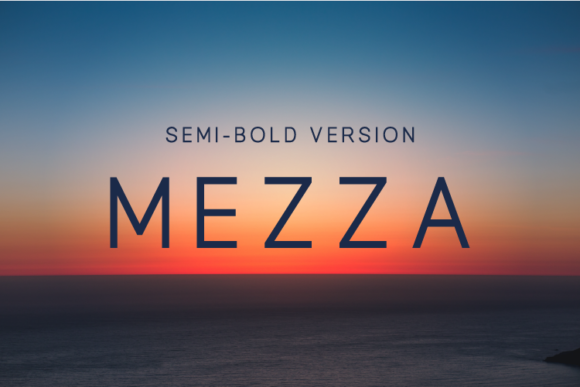
Introducing Mezza Semi Bold Font, the epitome of elegance and sophistication that will elevate your designs to new heights. This captivating all-caps sans serif font, meticulously crafted by Huntype, exudes a timeless charm that will leave a lasting impression on your audience.
Imagine your words dancing across the page with the grace of a ballerina, commanding attention and evoking emotions. Mezza Semi Bold Font possesses an inherent ability to transform ordinary text into extraordinary works of art, making it the perfect choice for magazine layouts that demand impact and invitations that promise an unforgettable experience.
Whether you seek to create eye-catching headers that beckon your readers to delve deeper into your content or desire monumental artworks that will leave viewers in awe, Mezza Semi Bold Font is your muse. Its minimalist design lends itself effortlessly to a myriad of creative endeavors, empowering you to express your individuality and leave an indelible mark on the world.
Immerse yourself in the world of Mezza Semi Bold Font, where simplicity meets sophistication, and let your imagination soar. This font is not merely a tool; it's an extension of your creativity, a gateway to a realm of boundless possibilities. Embrace the allure of Mezza Semi Bold Font and witness the transformation of your designs into captivating masterpieces that will forever captivate hearts and minds.